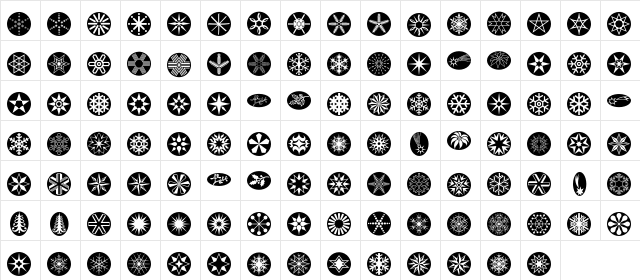
Jaeger Kristallschmuck Negativ BQ Regular
Design Context for Jaeger Kristallschmuck Negativ BQ Typeface
Jaeger Kristallschmuck Negativ BQ is a composed and adaptable typeface that performs quietly and consistently across a wide range of design contexts.